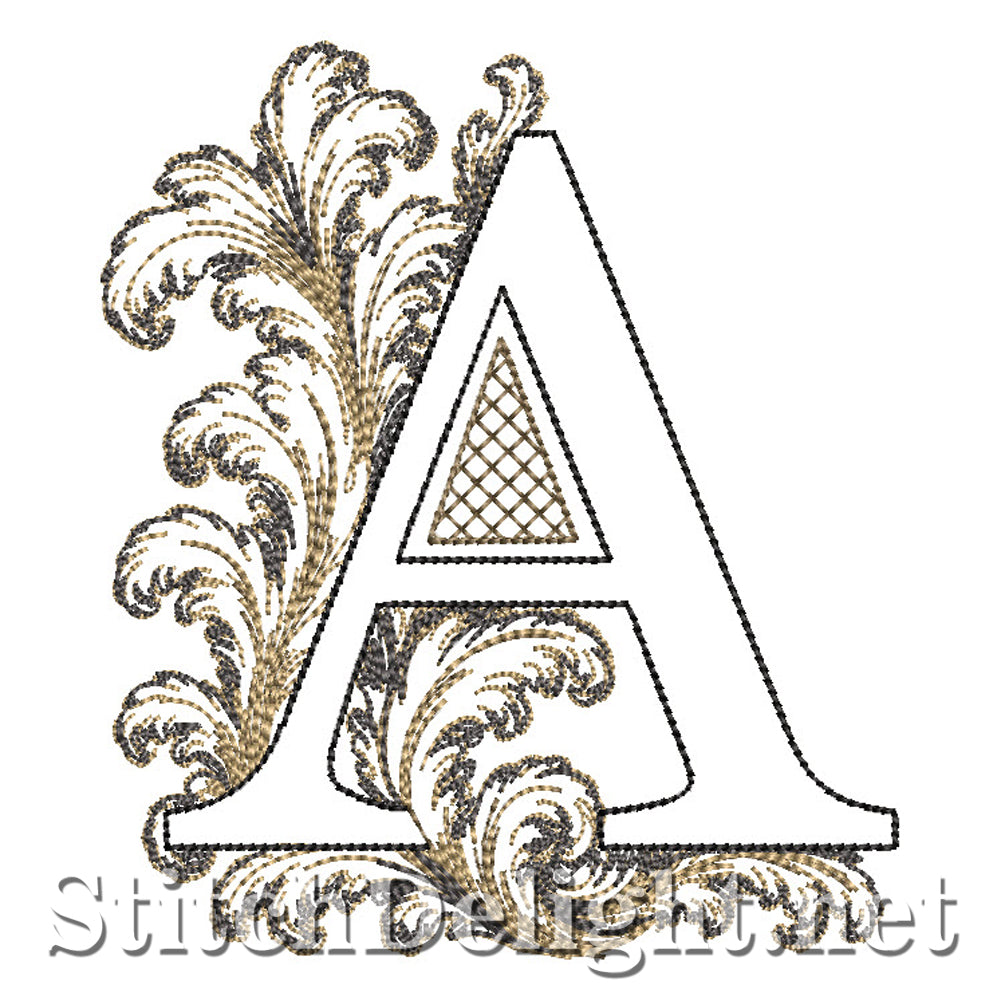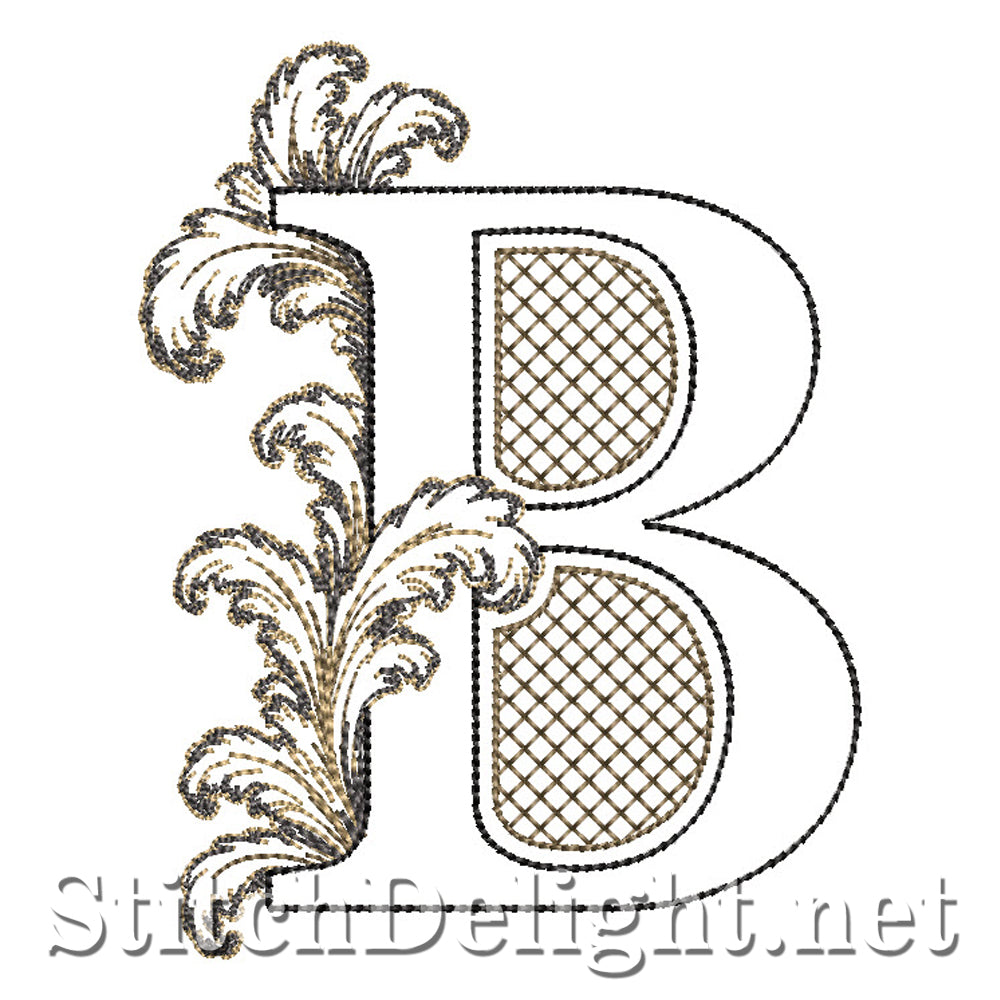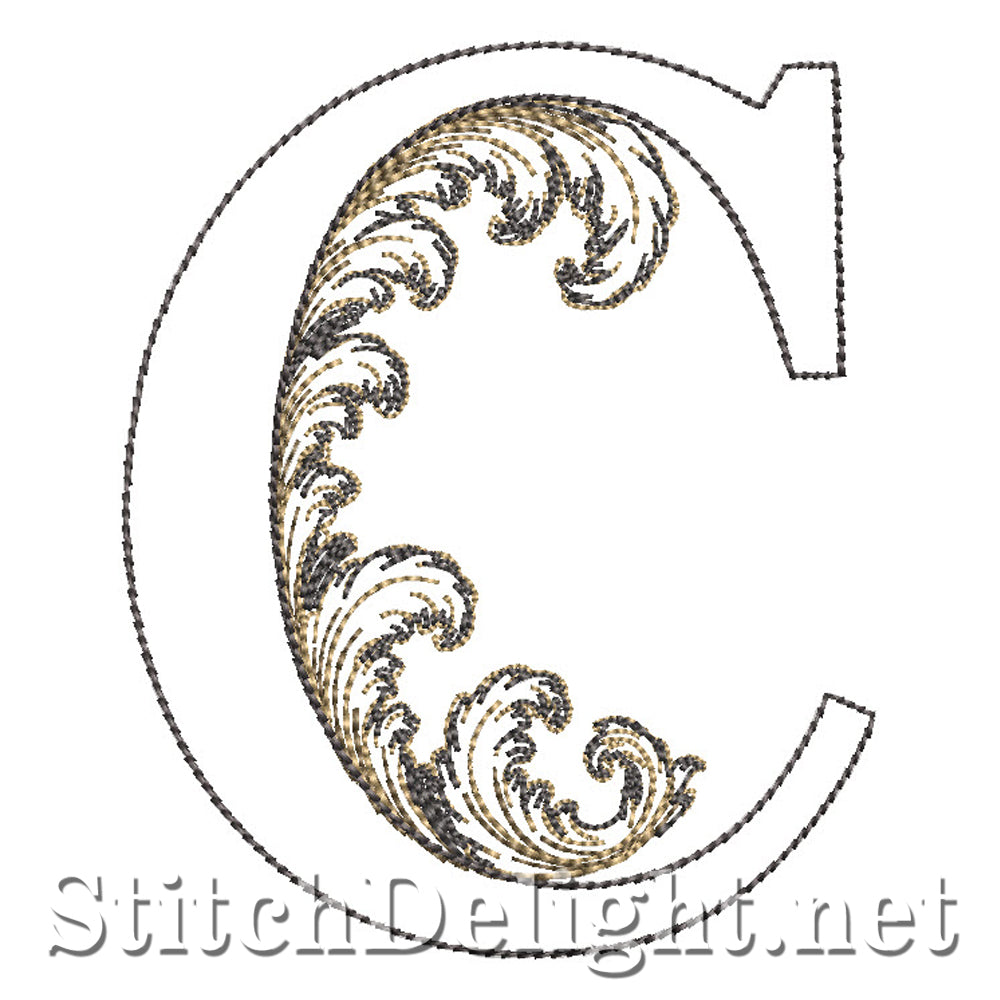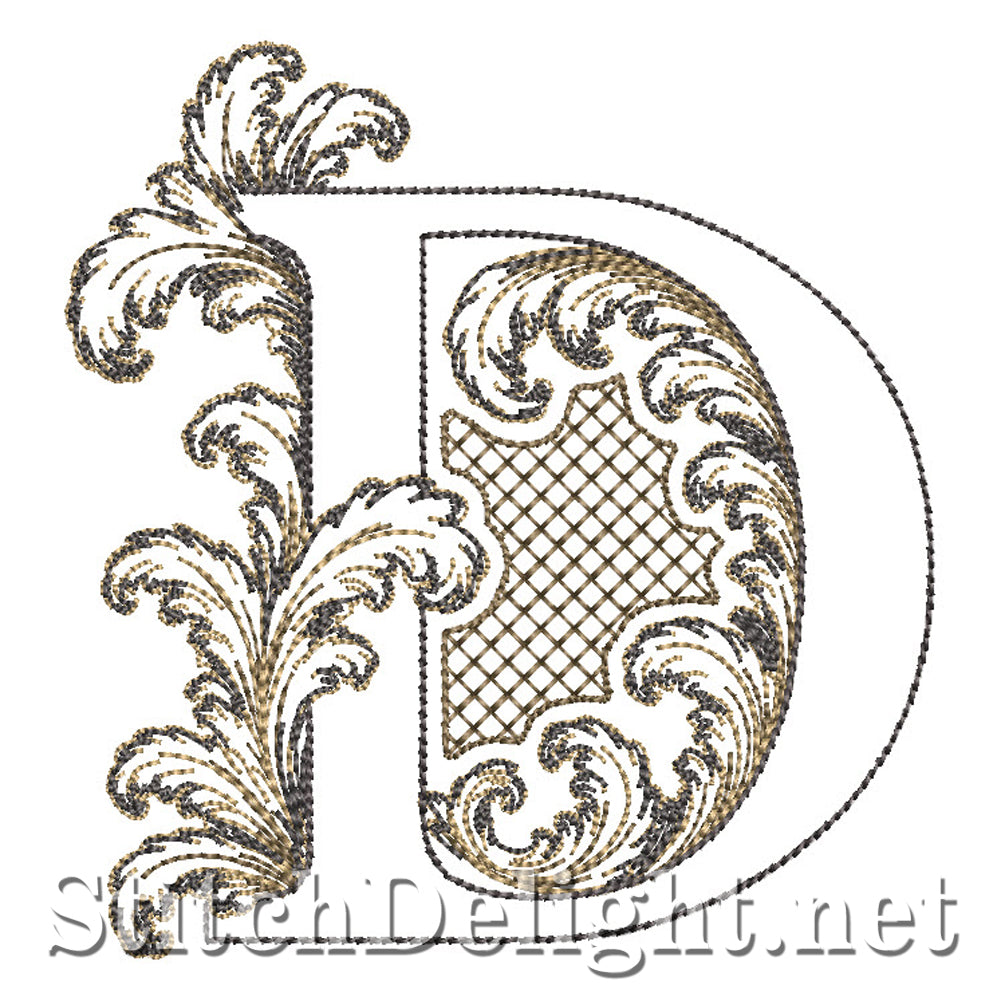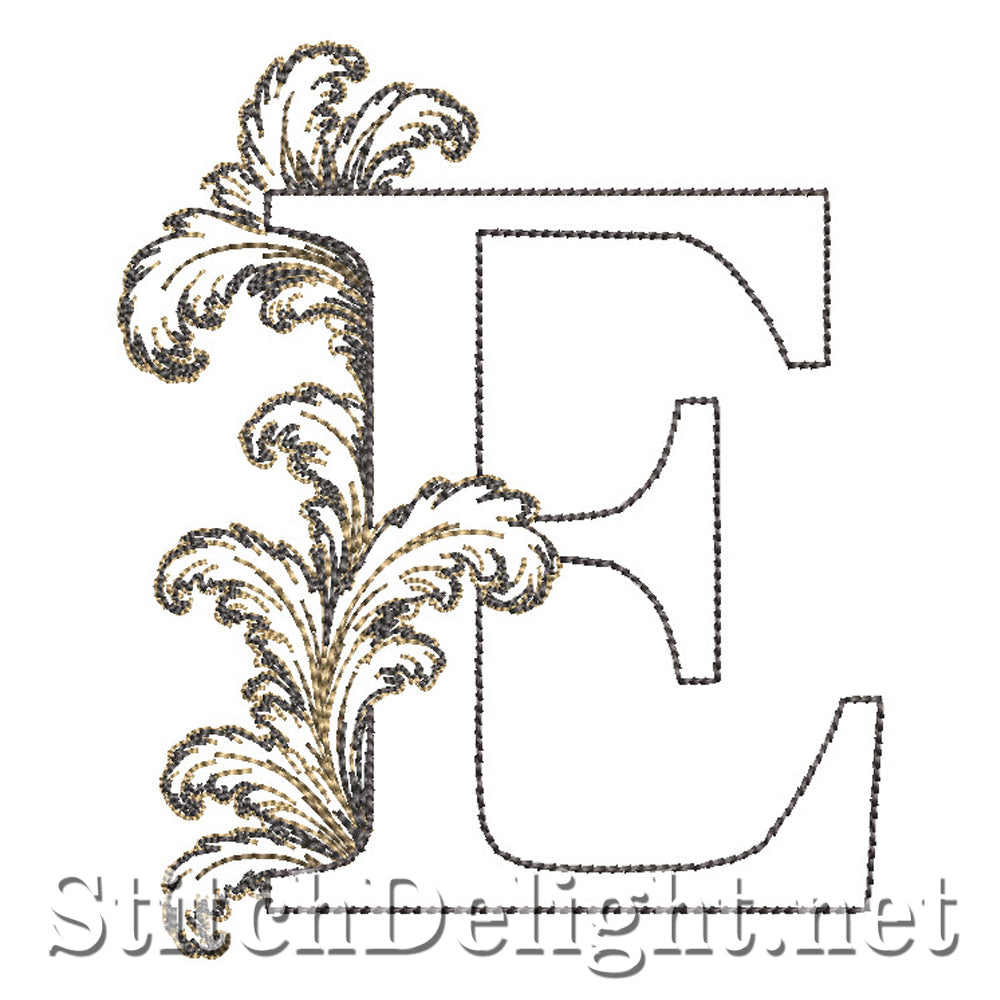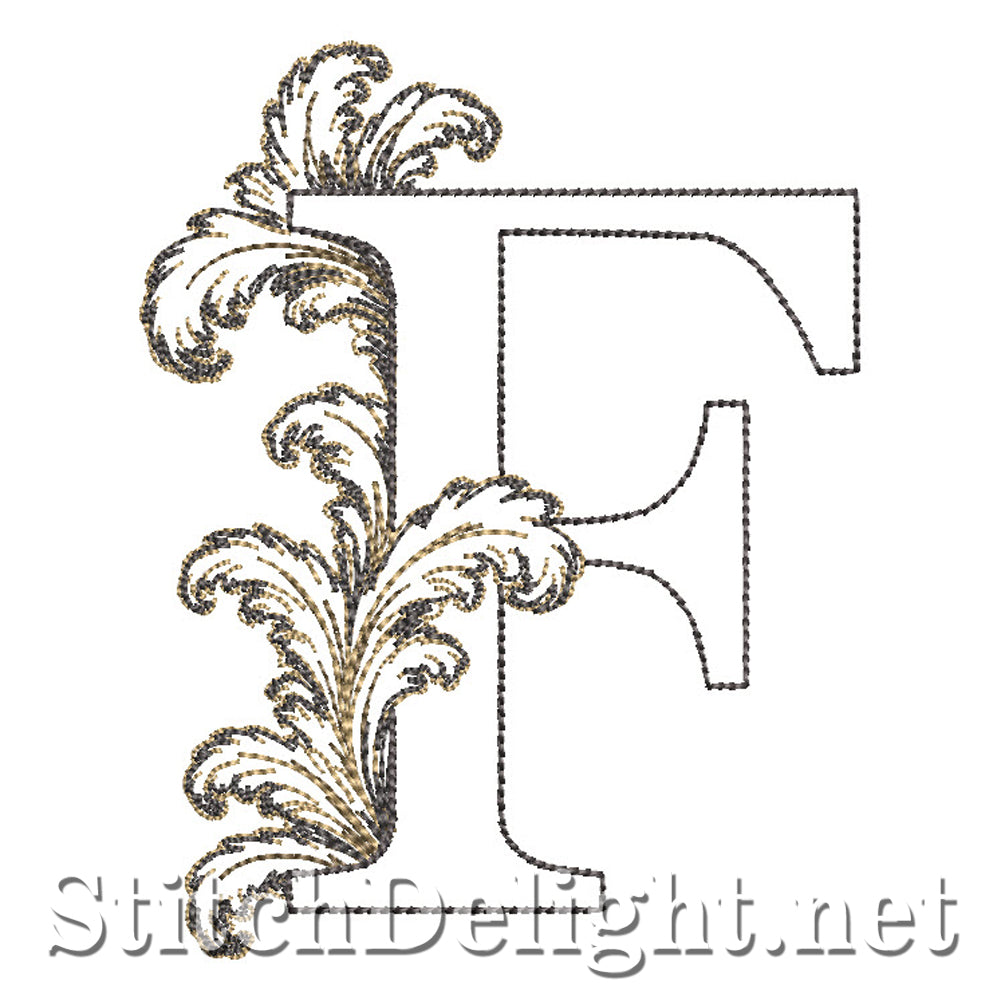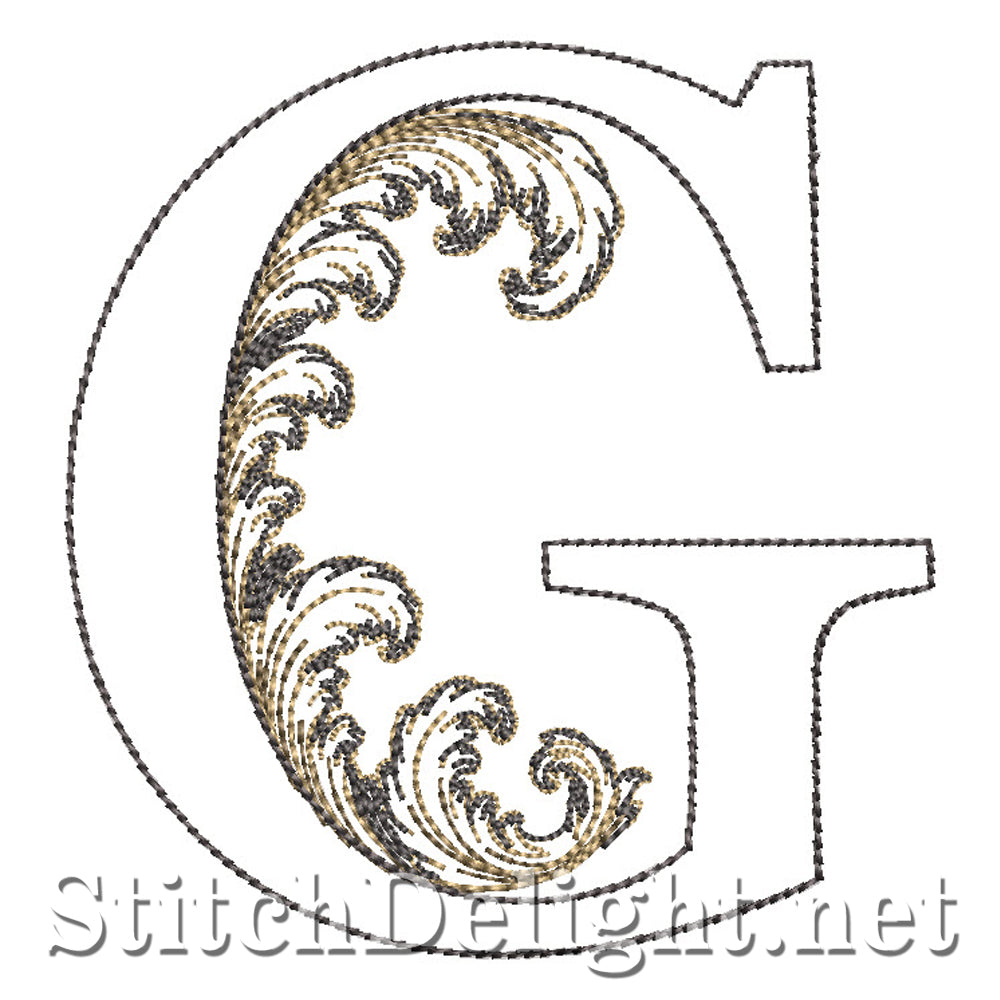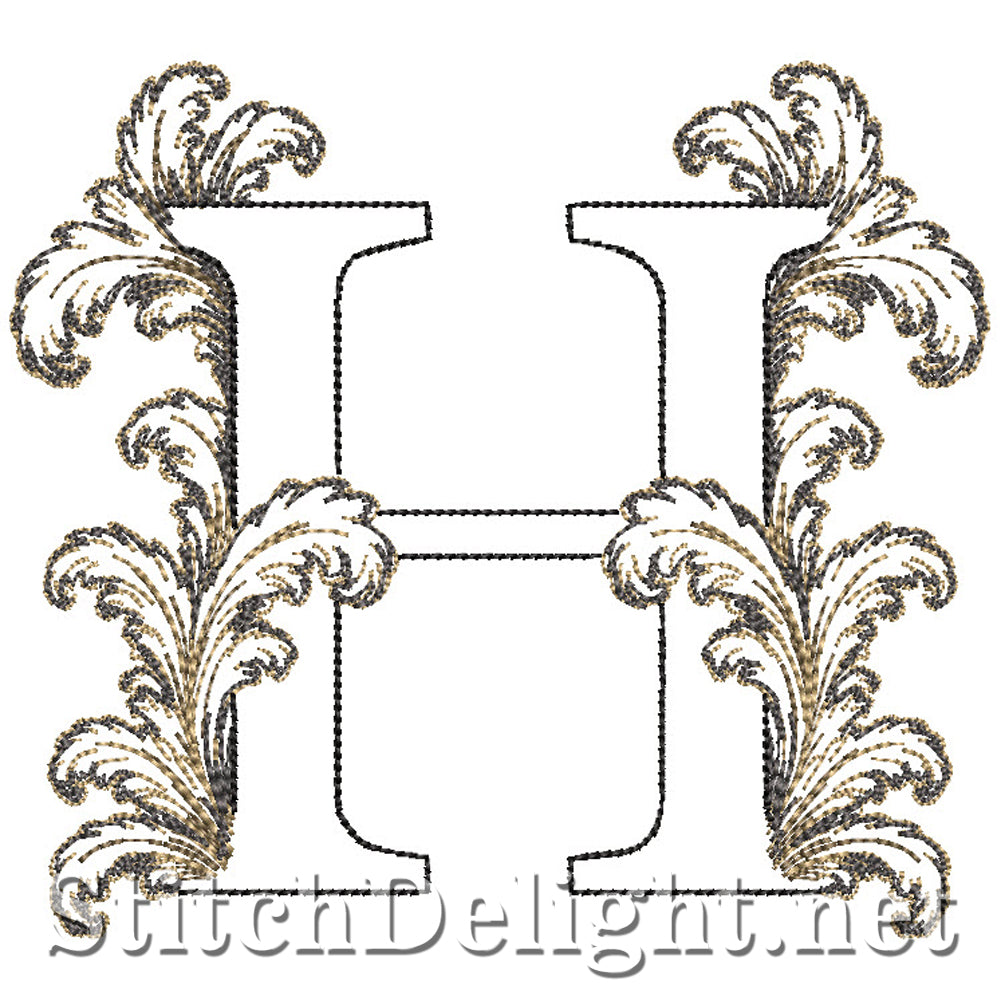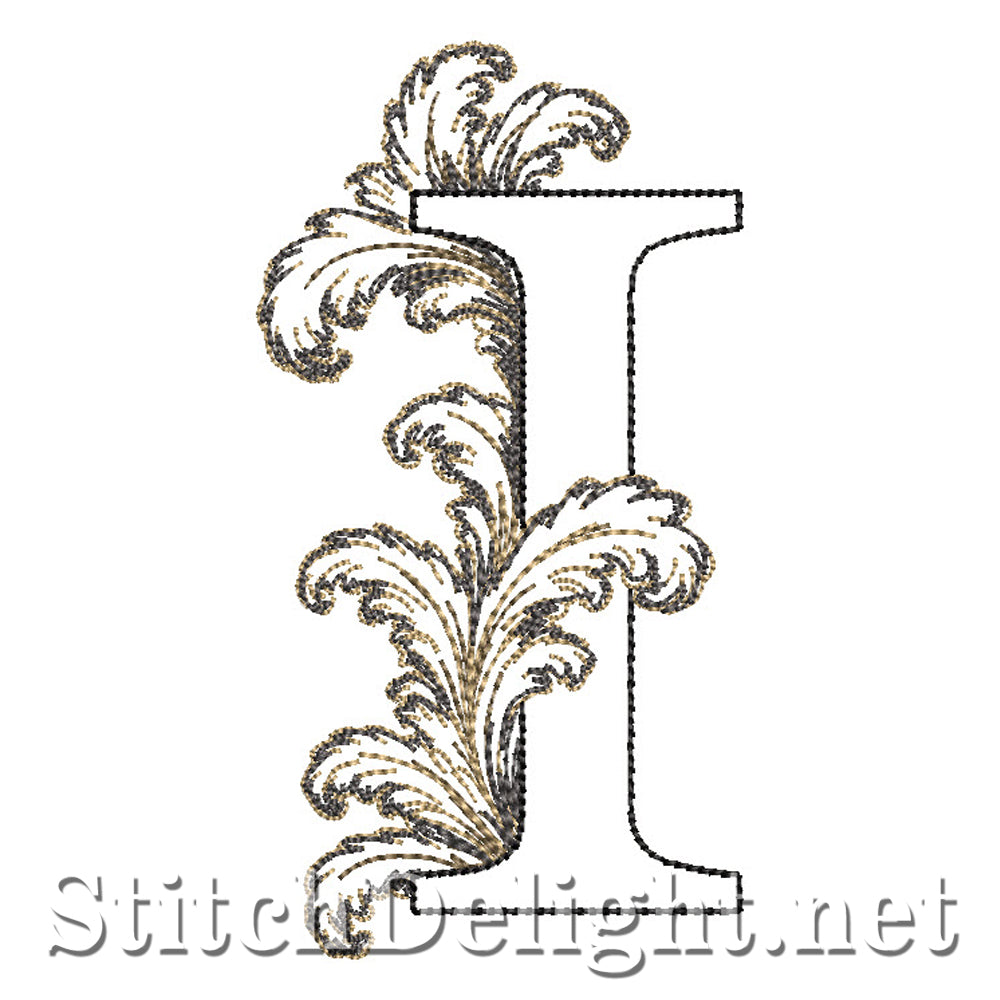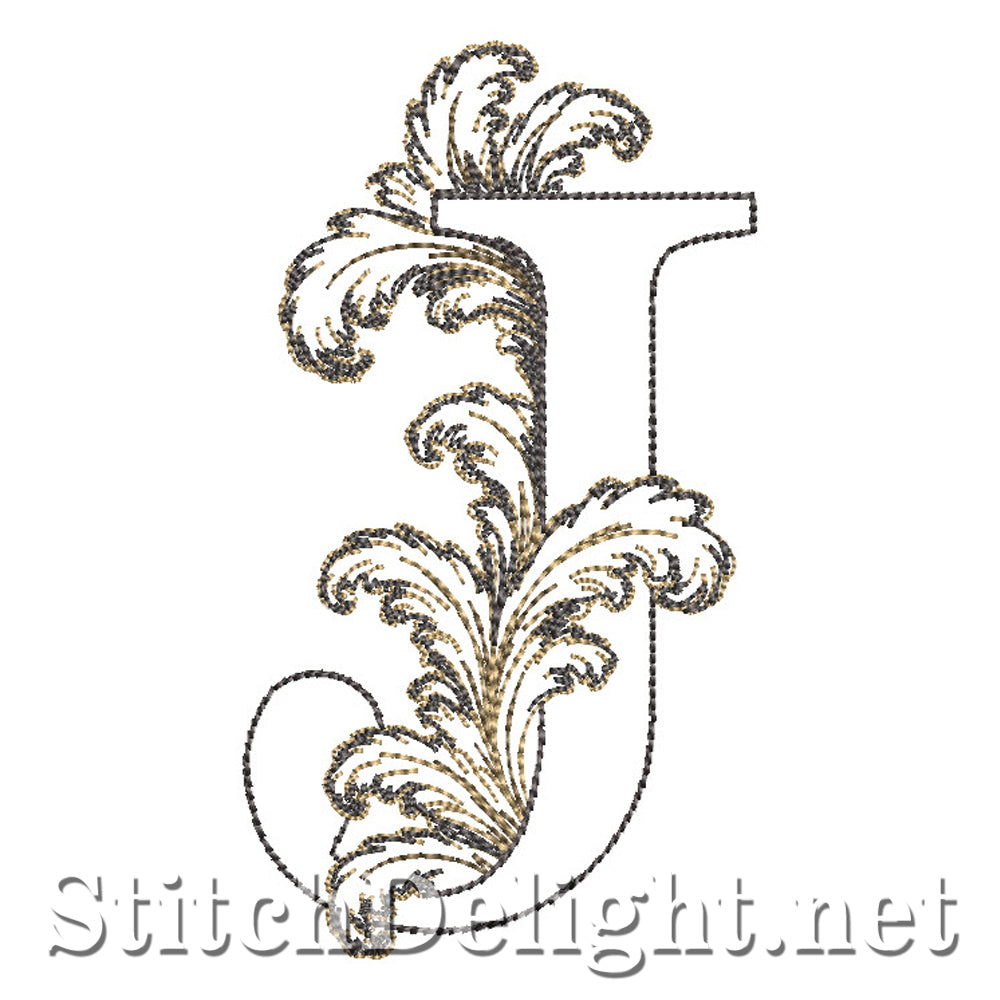
Add timeless elegance to your embroidery with the Ornate Acanthus Monogram Font. Inspired by classic acanthus scrollwork, each letter is beautifully detailed to create striking monograms for quilts, cushions, towels, bags, table linens, and personalized gifts.
Designed as a statement alphabet, every uppercase letter measures approximately 5 inches high and fits a standard 5×7" embroidery hoop, making it ideal for projects where you want the lettering to become the focal point.
The decorative running-stitch design creates a refined heirloom look while remaining light enough for a wide variety of fabrics. Whether you're creating a single initial or combining it with other embroidery elements, this alphabet adds a touch of sophistication to every project.
- Complete uppercase A–Z alphabet
- Approximately 5" tall letters
- Fits a standard 5" × 7" hoop
- Elegant acanthus-inspired design
- Perfect for monograms, home décor, gifts, quilts, and more